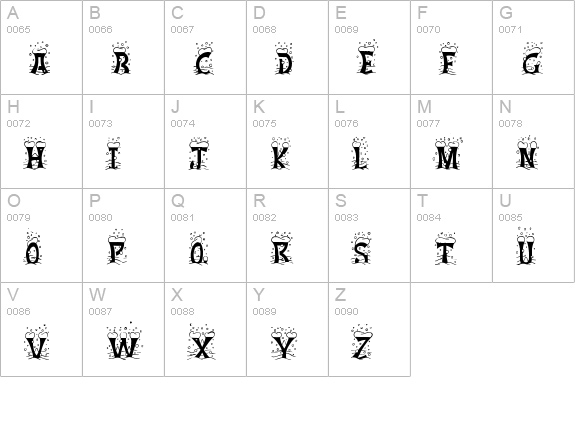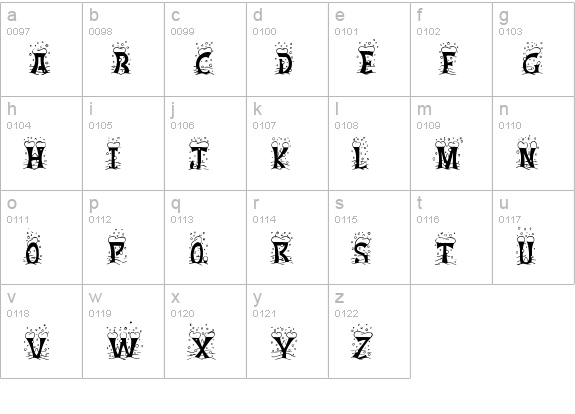
Christmas Font Details
Introducing the Christmas font, a whimsical and festive typeface that brings the joy and spirit of the holiday season to your designs. With its playful and decorative elements, this font captures the essence of Christmas, making it perfect for creating eye-catching greeting cards, party invitations, and holiday-themed graphics. The Christmas font features unique letterforms inspired by traditional Christmas symbols, including snowflakes, ornaments, and twinkling lights. Each character is carefully crafted to evoke the warmth and magic of the season, adding a touch of enchantment to any project. One of the best things about the Christmas font is that it is available for free! Yes, you read that right – this delightful typeface can be freely downloaded at FontsMarket.com. Whether you are a professional designer or a creative enthusiast, you can now effortlessly add a touch of holiday cheer to your artwork without any cost. Downloading the Christmas font is easy and hassle-free. Simply visit FontsMarket.com, search for the font by name, and click on the download button. Within moments, you'll have access to this delightful font, ready to be installed and used in your favorite design software. Spread the joy and spread the love this holiday season with the Christmas font. Its free availability and charming design make it a must-have for anyone looking to add a festive touch to their creations. So, why wait? Download the Christmas font today and let your designs sparkle with holiday magic.